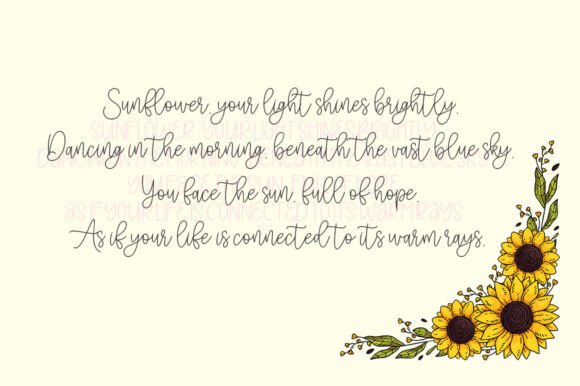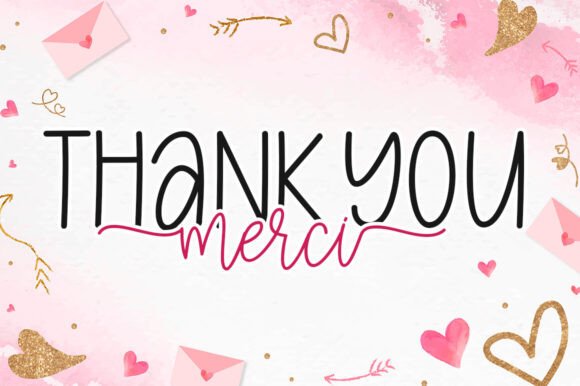
Introducing the Happy Birthday Font Trio: Elevate Your Designs with Elegance and Charm
Are you on the hunt for a font that adds a touch of sophistication and whimsy to your designs? Look no further than the Happy Birthday Font Trio, a contemporary script font that is sure to capture the hearts of designers and crafters alike. This beautiful font trio is characterized by its unique irregular baseline, giving it a distinctive charm that exudes a chic and feminine aura.
The Happy Birthday Font Trio is incredibly versatile and can be used for a wide range of projects, including wedding invitations, gratitude notes, inspirational quotes, greeting cards, logos, business cards, and more. Its elegant and modern design makes it an excellent choice for anyone looking to add a touch of sophistication to their work.
Seamlessly Blending Style and Elegance
One of the standout features of the Happy Birthday Font Trio is its ability to pair perfectly with ink or watercolors. The font’s unique irregular baseline and delicate lines create a beautiful contrast with the fluidity of ink or watercolors, resulting in a stunning visual effect. Whether you’re creating a wedding invitation or a greeting card, this font trio is sure to elevate your design to the next level.
More than Just Alphabets
The Happy Birthday Font Trio is more than just a collection of alphabets. It also includes initial letters, terminals, and alternative versions, giving you a wide range of options to choose from. This level of versatility makes it easy to create unique and eye-catching designs that stand out from the crowd.
Extensive Language Support
In addition to its many features, the Happy Birthday Font Trio also offers extensive language support. This means that you can use the font to create designs in a variety of languages, making it an excellent choice for designers and crafters who work with international clients.
Infuse Charm into Every Project
The Happy Birthday Font Trio is designed to infuse charm into every project. Its distinctive charm and elegant design make it an excellent choice for anyone looking to add a touch of sophistication to their work. Whether you’re creating a wedding invitation, a greeting card, or a logo, this font trio is sure to make your design stand out.
Key Features of the Happy Birthday Font Trio
• Contemporary script font with unique irregular baseline
• Exudes a chic and feminine aura
• Perfect for wedding invitations, gratitude notes, inspirational quotes, greeting cards, logos, business cards, and more
• Seamlessly blends style and elegance with ink or watercolors
• Includes initial letters, terminals, and alternative versions
• Offers extensive language support
Tips for Using the Happy Birthday Font Trio
Here are a few tips for using the Happy Birthday Font Trio:
• Use the font to create eye-catching headings and titles
• Pair the font with ink or watercolors for a stunning visual effect
• Experiment with different initial letters and terminals to add a touch of whimsy to your design
• Use the font to create unique and personalized stationery, such as wedding invitations and greeting cards
The Happy Birthday Font Trio is a beautiful and versatile font that is sure to elevate your designs to the next level. Its unique irregular baseline, elegant design, and extensive language support make it an excellent choice for designers and crafters alike. Whether you’re creating a wedding invitation, a greeting card, or a logo, this font trio is sure to infuse charm into every project.